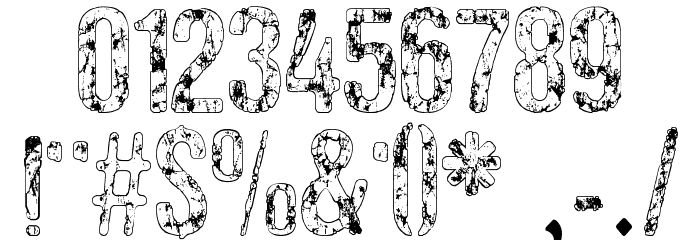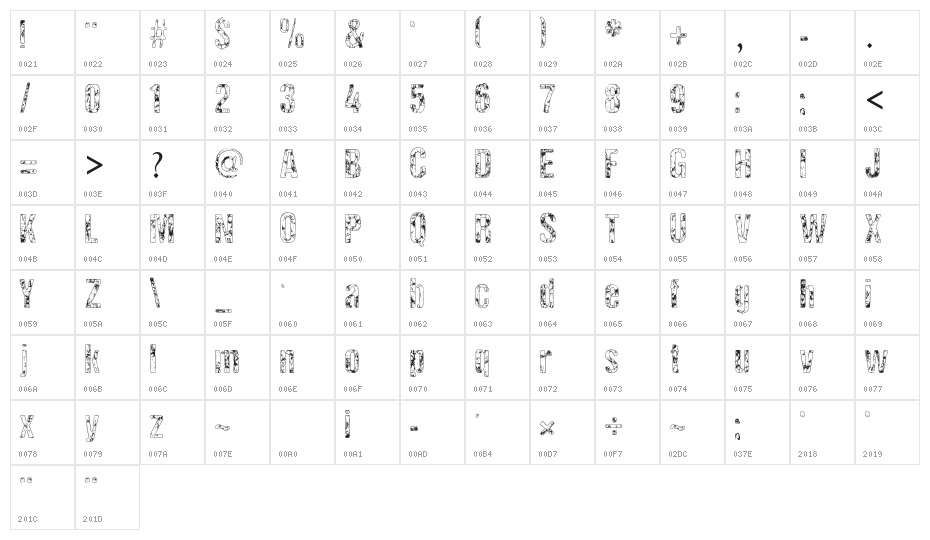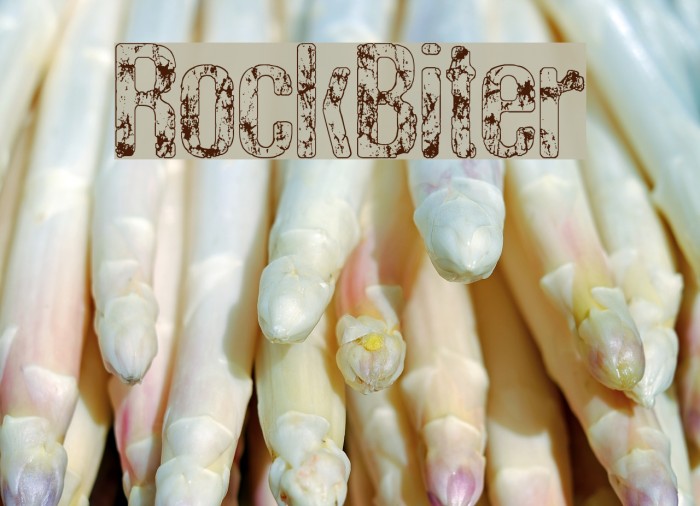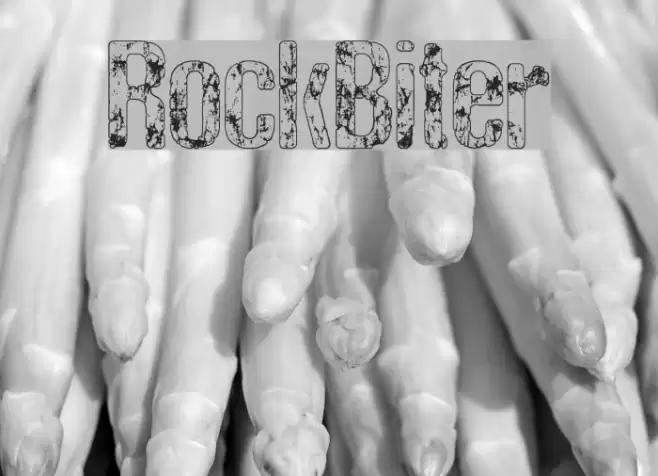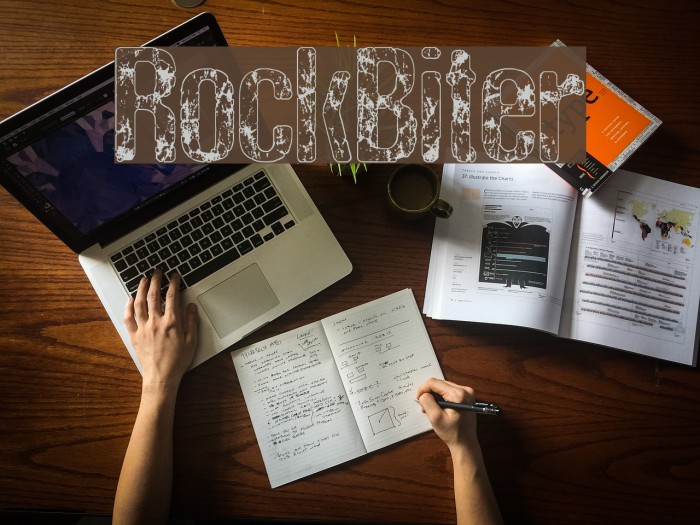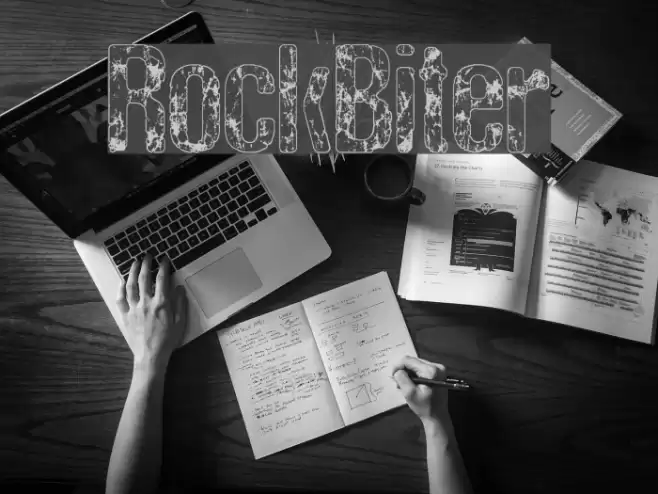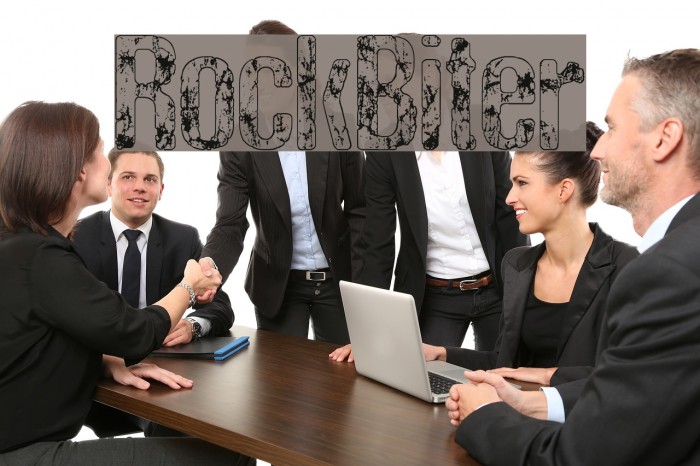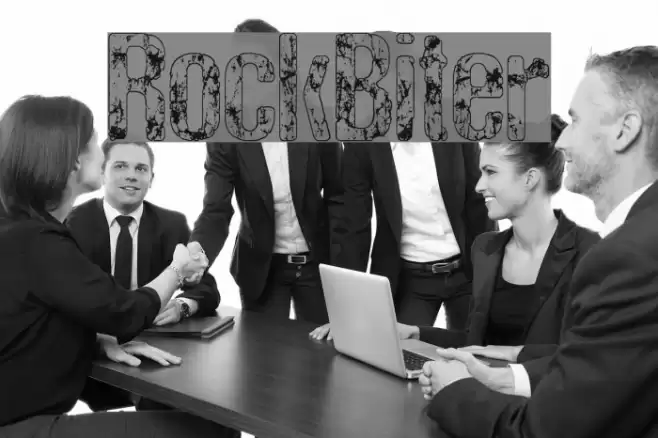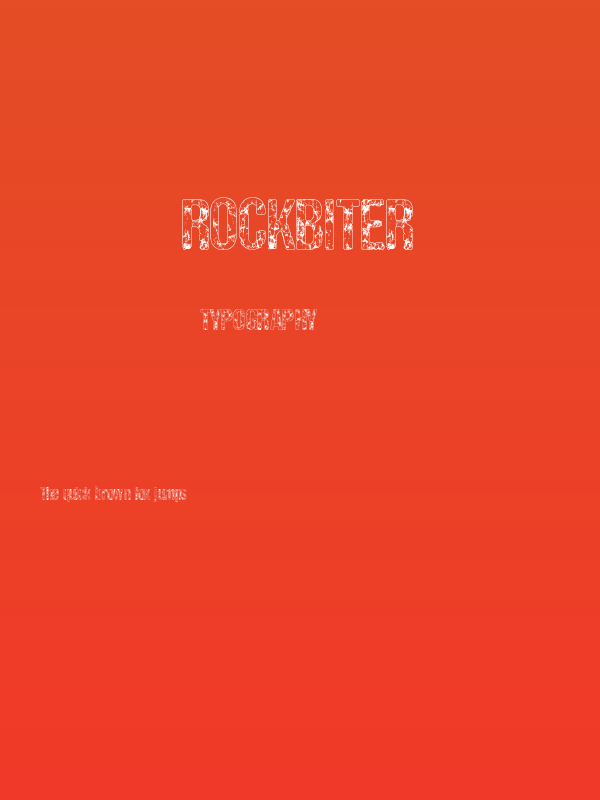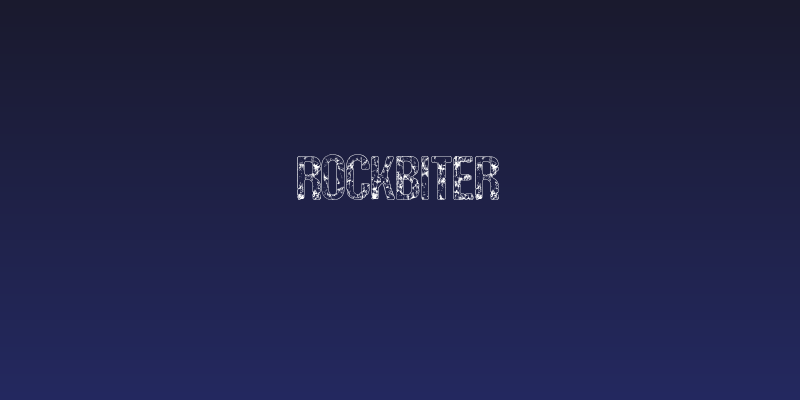
RockBiter Font
RockBiter Description
This font features a rugged and distressed appearance, reminiscent of eroded rock surfaces. The characters are bold and substantial, with a textured pattern that gives them a weathered look. The uppercase and lowercase letters maintain a consistent style, with the texture adding a unique visual interest. Numbers and special characters are equally treated with this rough texture, making the font suitable for designs that require a gritty, natural feel. The overall design is eye-catching and impactful, perfect for projects that need a bold statement.
| Proposed Projects | Ideal for posters, album covers, outdoor adventure branding, and any design needing a bold, natural aesthetic. |